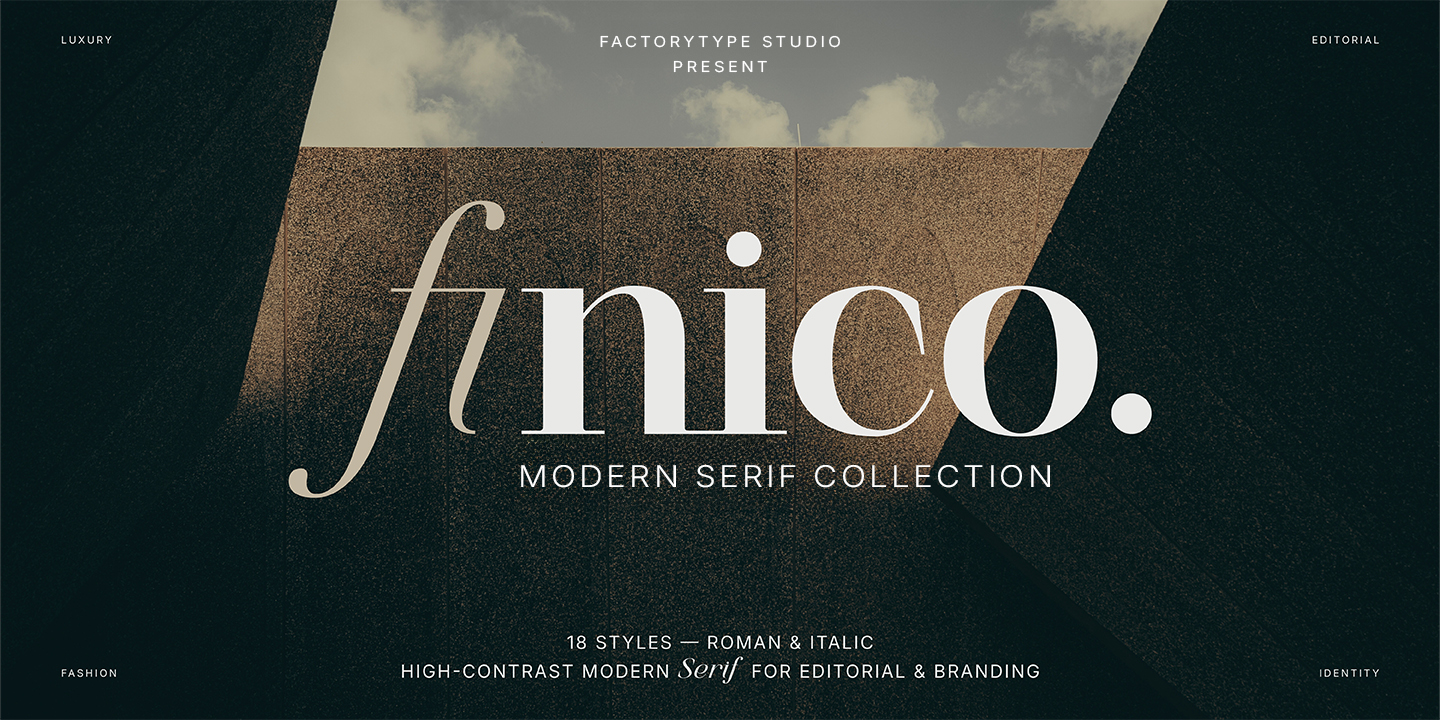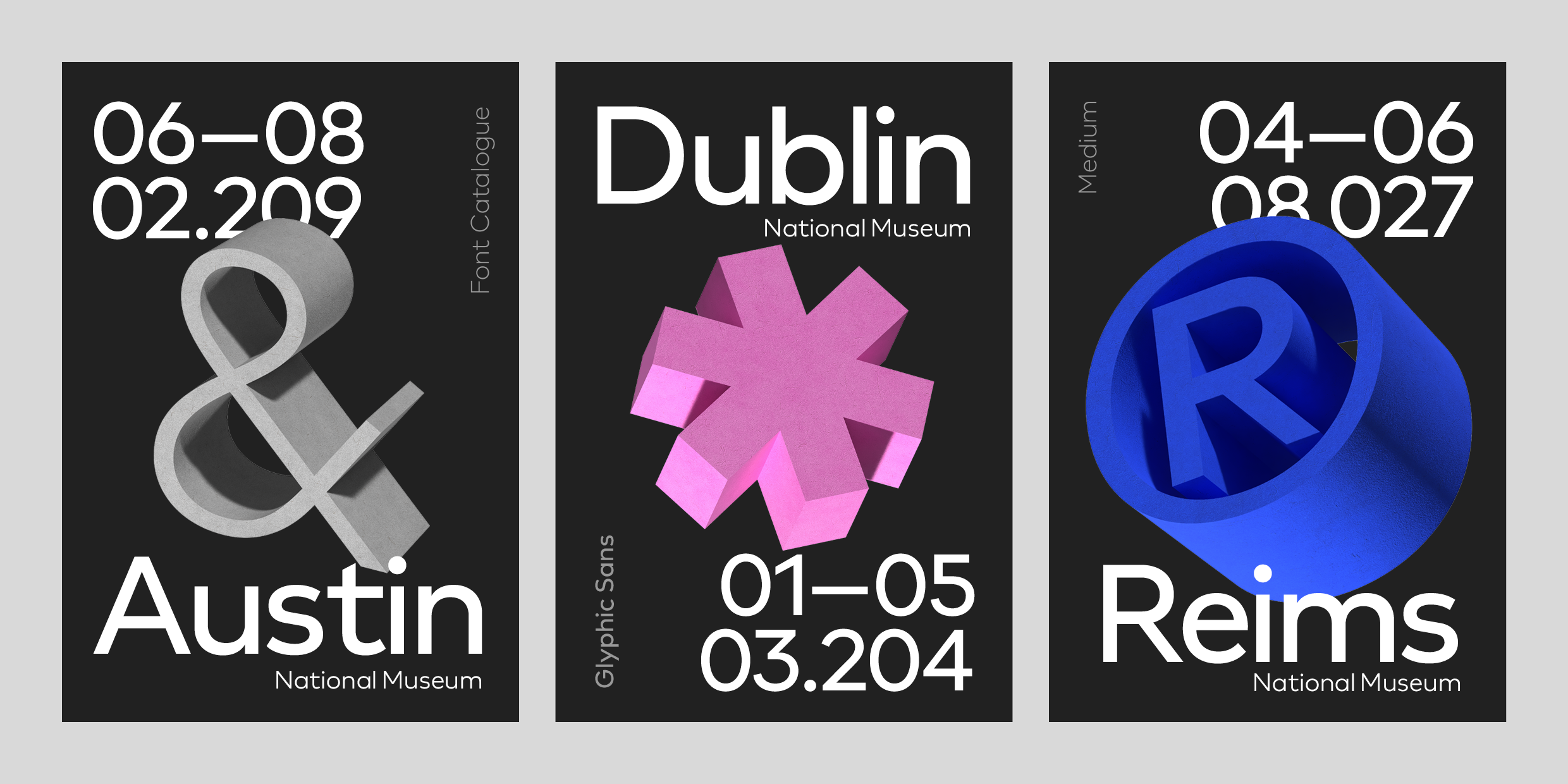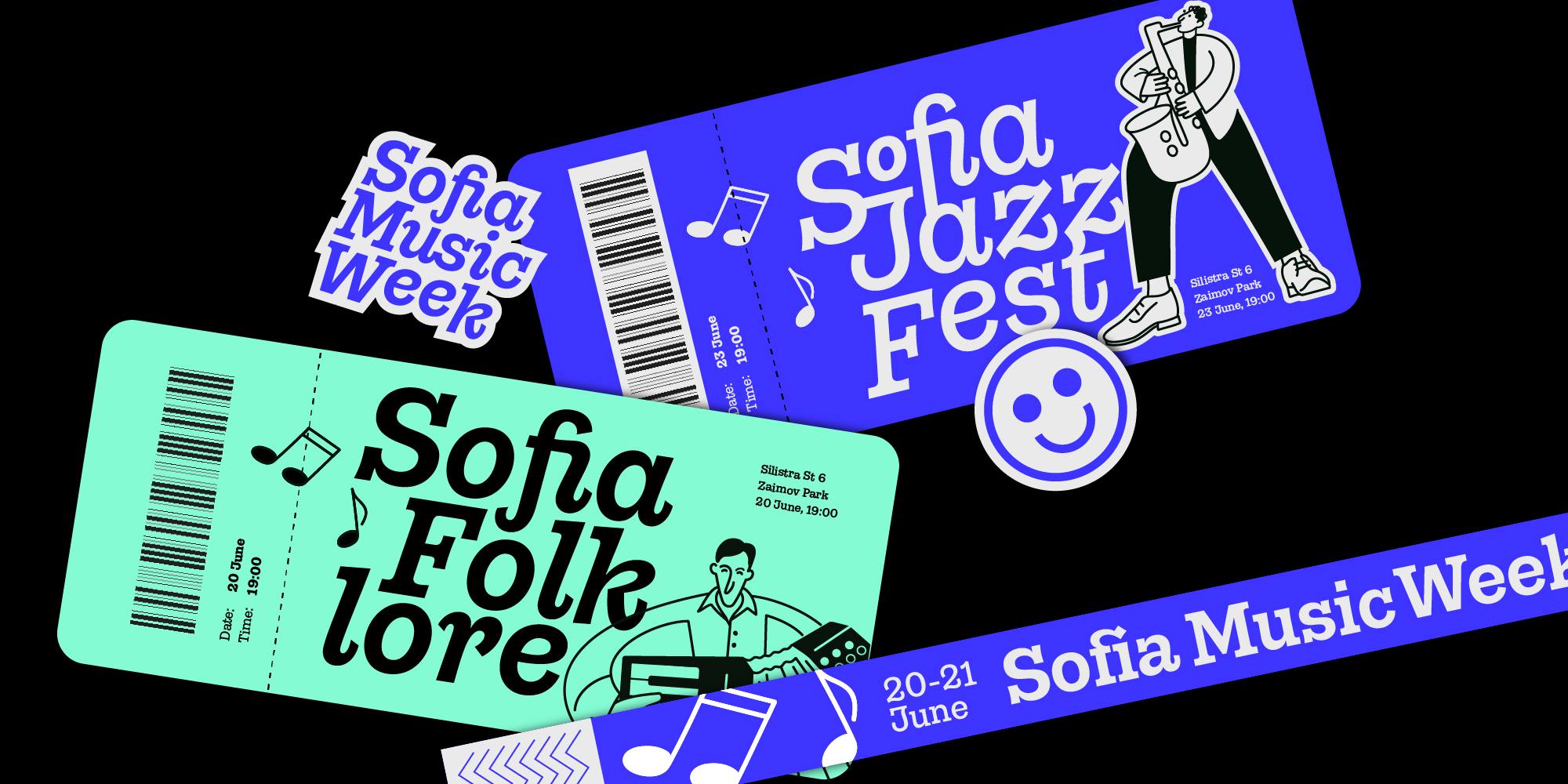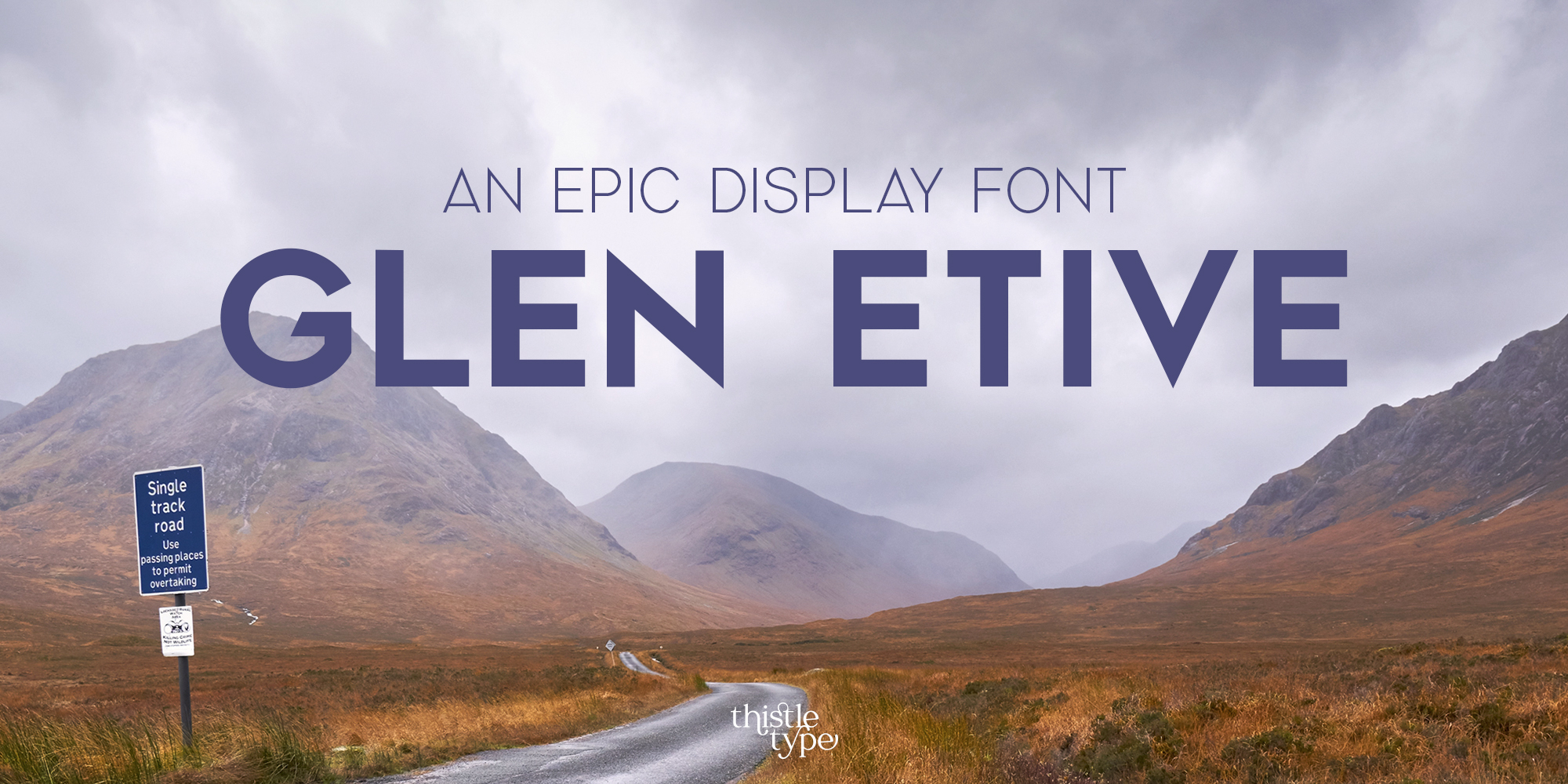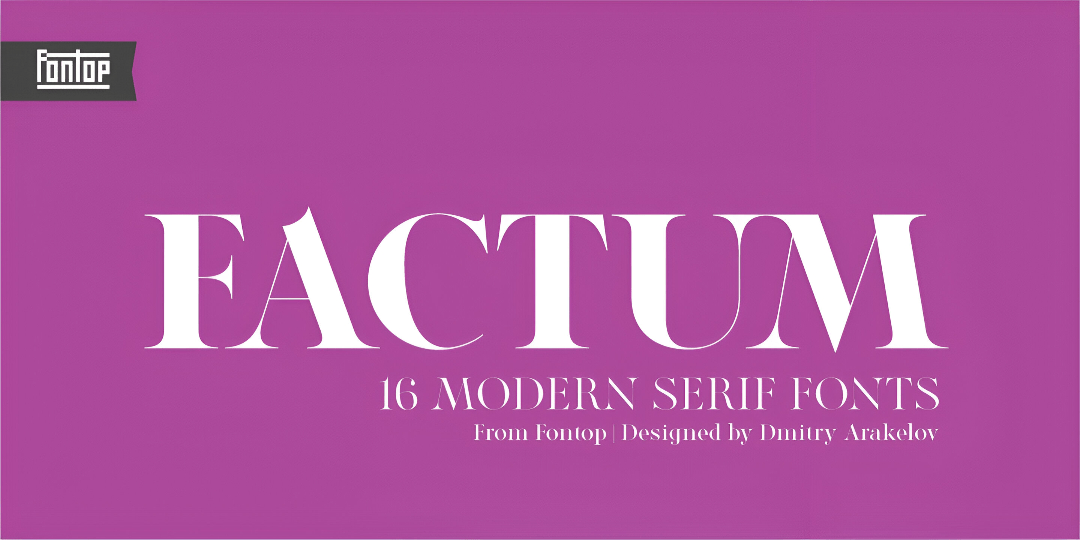
| High Contrast Serif Classics | |
High Contrast Serif Classics is a refined collection of elegant, high-contrast serif typefaces. Featuring dramatic stroke differences, crisp hairlines, and sophisticated shapes, these fonts deliver a timeless editorial look suitable for luxury branding, magazine headlines, and premium design projects. This bundle provides designers with a selection of graceful, expressive serif styles that add instant refinement and visual impact to any layout. 20 fonts for $22 | |
Finico Serif is a modern high-contrast serif family made to steal the spotlight. Designed for bold editorial statements, luxury branding, and expressive headlines, Finico blends sculpted elegance with contemporary sophistication. With refined curves, sharp serifs, and beautifully crafted italics, Finico brings a polished, confident energy to any design.
Whether you're creating magazine layouts, fashion identities, or premium packaging, this type family is built to elevate your work with style and presence. Finico Serif is a complete 18-style type system created for designers who love clean elegance and modern editorial aesthetics. Its contrast, rhythm, and striking italics make it a powerful choice for luxury brands and type-driven compositions. 18 fonts for $249 | |
| | Glyphic Sans by Font Catalogue | From logos to digital interfaces, Glyphic Sans communicates professionalism with a distinctive... | | | | |
| | Gonzaga by Fontfabric | A Serif typeface designed for headlines, branding, packaging, editorial layouts... | | | | |
| | Glen Etive by Thistle Type | Glen Etive draws inspiration from the wild beauty of the Scottish Highlands... | | | | |